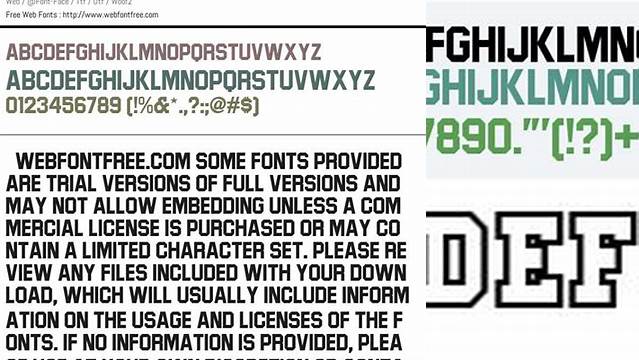
Joe College Sans Font: Free Download & Creative Uses
Understanding the Appeal of Joe College Sans Font
Hey guys! Ever stumbled upon a font that just screams classic cool and makes you want to design something epic? That's exactly the vibe you get with the Joe College Sans font. This typeface has a really unique character, blending a retro, collegiate feel with a modern sans-serif structure. It’s not just any font; it's a statement. Whether you’re working on a brand identity, a poster for a local band, or even just personal projects, Joe College Sans has this knack for adding that extra layer of personality and historical flair. Its clean lines are reminiscent of mid-century modern design, but the subtle quirks give it a handmade, approachable quality. We're talking about a font that's versatile enough for headings, catchy enough for display text, and surprisingly readable for body copy if used judiciously. The beauty of Joe College Sans lies in its ability to evoke a sense of nostalgia while remaining perfectly relevant for contemporary design needs. It’s that perfect blend of old-school charm and new-school sophistication that makes designers keep coming back to it. Think of those vintage college yearbooks, old movie posters, or even quirky indie album covers – Joe College Sans can effortlessly transport your design back to those eras, but with a fresh, crisp execution. It’s a real gem in any designer's toolkit, offering a distinctive look without being overly trendy or difficult to work with. The proportions are well-balanced, making it a joy to type with, and the overall impression it leaves is one of confidence and a touch of playful vintage spirit. It’s a font that doesn’t just sit there; it communicates a story, a feeling, a time. Its accessibility, especially when you can get it for free, makes it an even more attractive option for everyone from hobbyists to seasoned professionals looking to add a unique touch to their work. Seriously, guys, if you’re after a font that can give your designs that unforgettable edge, Joe College Sans is definitely worth exploring. Its impact is subtle yet profound, elevating ordinary text into something visually compelling and memorable. It’s the kind of font that makes people look twice and ask, “What font is that?” – and that’s always a good sign.
Why Choose Joe College Sans for Your Next Project?
So, why should you, specifically, be reaching for the Joe College Sans font when you've got a gazillion other options out there? Great question, guys! The answer boils down to its distinctive personality and versatility. This isn't your run-of-the-mill, corporate sans-serif. Joe College Sans brings a unique blend of retro charm and modern readability that can elevate almost any project. Imagine you're designing a flyer for a campus event, a logo for a small business, or even a cool t-shirt graphic. Using Joe College Sans instantly injects a sense of vintage coolness and authenticity that’s hard to replicate with other fonts. It has this subtle, almost handwritten feel in some of its letterforms, which makes it feel more approachable and less sterile than many geometric sans-serifs. Plus, its slightly condensed width can be a real space-saver when you need to pack a lot of information into a small area without sacrificing legibility. It’s perfect for headlines that need to grab attention or for creating eye-catching display text. But don't just think of it for big, bold statements! The clean lines and consistent weight also make it surprisingly capable for shorter blocks of body text, especially if you're aiming for a specific aesthetic like a vintage magazine or a quirky zine. The history behind fonts like this often adds another layer of appreciation – they often draw inspiration from specific design eras, and Joe College Sans taps into that mid-century modern, slightly collegiate vibe that’s perpetually stylish. It’s a font that doesn’t just look good; it feels good to use. It conveys a sense of community, tradition, and a certain effortless cool. Whether you're trying to evoke a sense of nostalgia, add a touch of playful character, or simply need a reliable yet distinctive sans-serif, Joe College Sans delivers. It's like finding that perfect vintage jacket – it’s got style, it’s got history, and it makes whatever you pair it with look instantly better. So, next time you're scrolling through font libraries, give Joe College Sans a serious look. It might just be the secret ingredient your design has been missing. It's a font that understands the balance between making a statement and remaining functional, a crucial aspect for any successful design. Its availability for free download just makes it an even sweeter deal, allowing you to experiment and implement it without breaking the bank. It’s a win-win, really! You get a unique font that adds character and usability, all while being incredibly accessible. That's why it's a go-to for many designers looking to stand out.